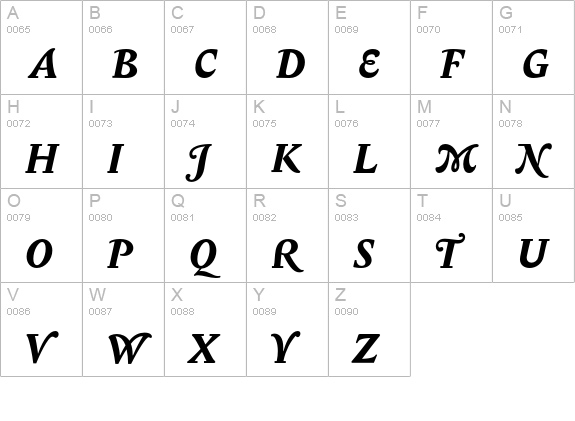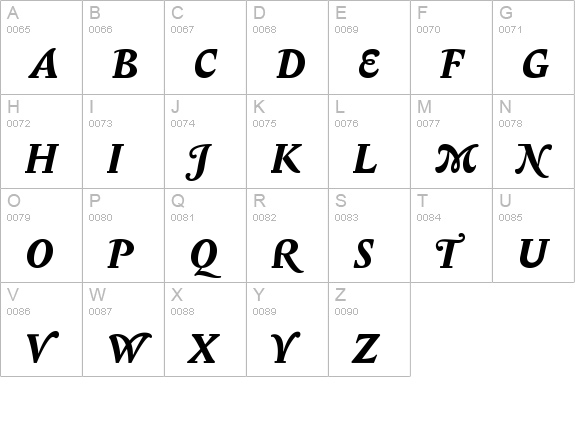
BiblonCaps-BoldItalic is a striking and elegant font that exudes sophistication and charm. With its bold and italic design, this typeface is perfect for adding a touch of style and flair to any project. Whether you're creating a logo, designing a poster, or working on a branding project, BiblonCaps-BoldItalic will make your text stand out. The unique design of this font makes it versatile for a wide range of uses, from headlines to body text. Its sharp edges and clean lines give it a modern and professional look that is sure to impress. The bold weight adds a touch of drama, while the italic style adds a sense of movement and fluidity. Best of all, BiblonCaps-BoldItalic is completely free to download at FontsMarket.com. This means you can access this stunning font without having to worry about any costs. Don't miss out on the opportunity to enhance your designs with the beauty and elegance of BiblonCaps-BoldItalic. Download it today and elevate your projects to the next level!